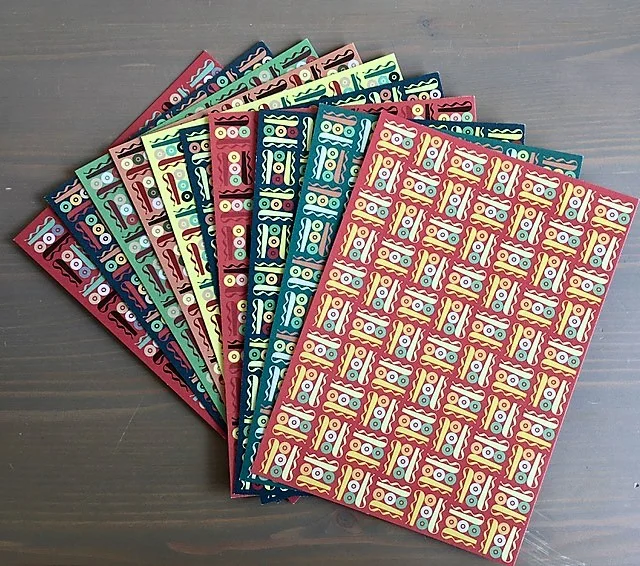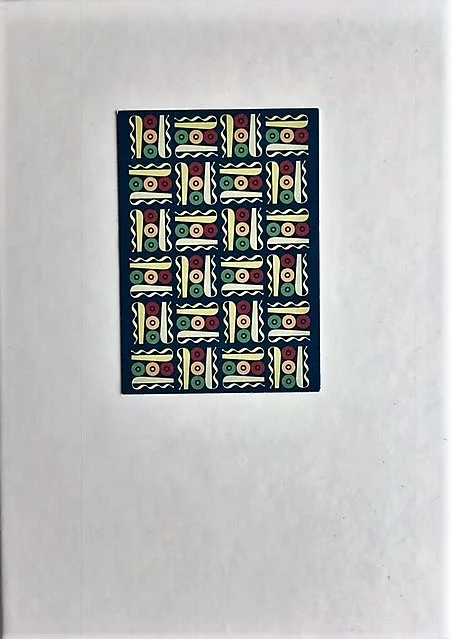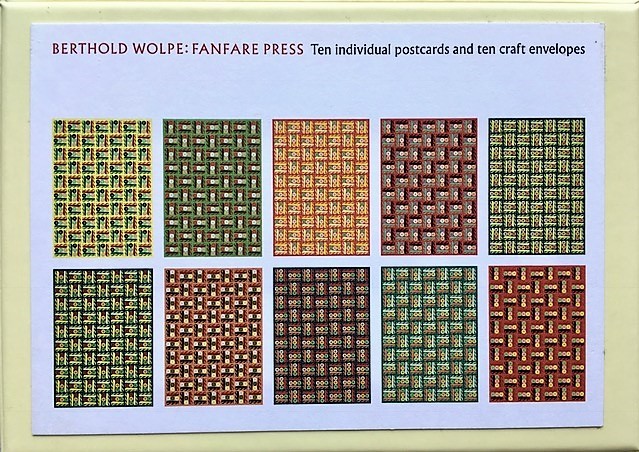
Berthold Wolpe was persuaded to design a series of type ornaments by Ernest Ingham, the founder of the Fanfare press. A selection of these was cut in 1936 and matrices were struck from which a supply of printers’ ornaments was cast.
The cards were designed by Prof. Phil Cleaver, the curator of our exhibition about Berthold Wolpe, ‘The Total Man.’
Berthold Wolpe was persuaded to design a series of type ornaments by Ernest Ingham, the founder of the Fanfare press. A selection of these was cut in 1936 and matrices were struck from which a supply of printers’ ornaments was cast.
The cards were designed by Prof. Phil Cleaver, the curator of our exhibition about Berthold Wolpe, ‘The Total Man.’